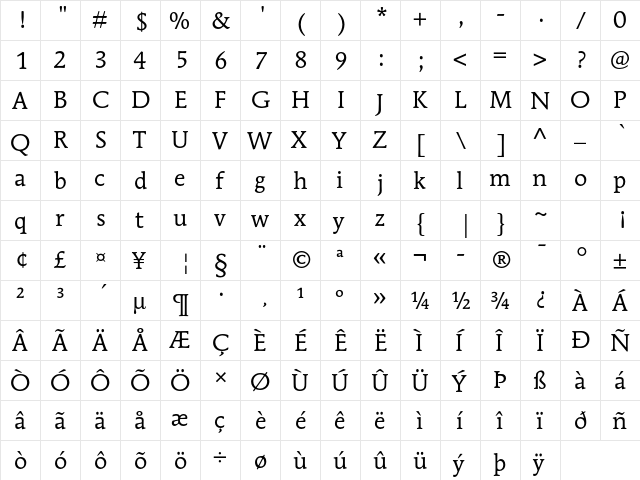
ITC Mendoza Roman Std Book
| Designer | JosΠMendoza y Almeida |
Design Context for ITC Mendoza Roman Std Typeface
ITC Mendoza Roman Std takes a measured approach to typography — its balanced proportions and neutral character make it a reliable workhorse for both digital and print work.